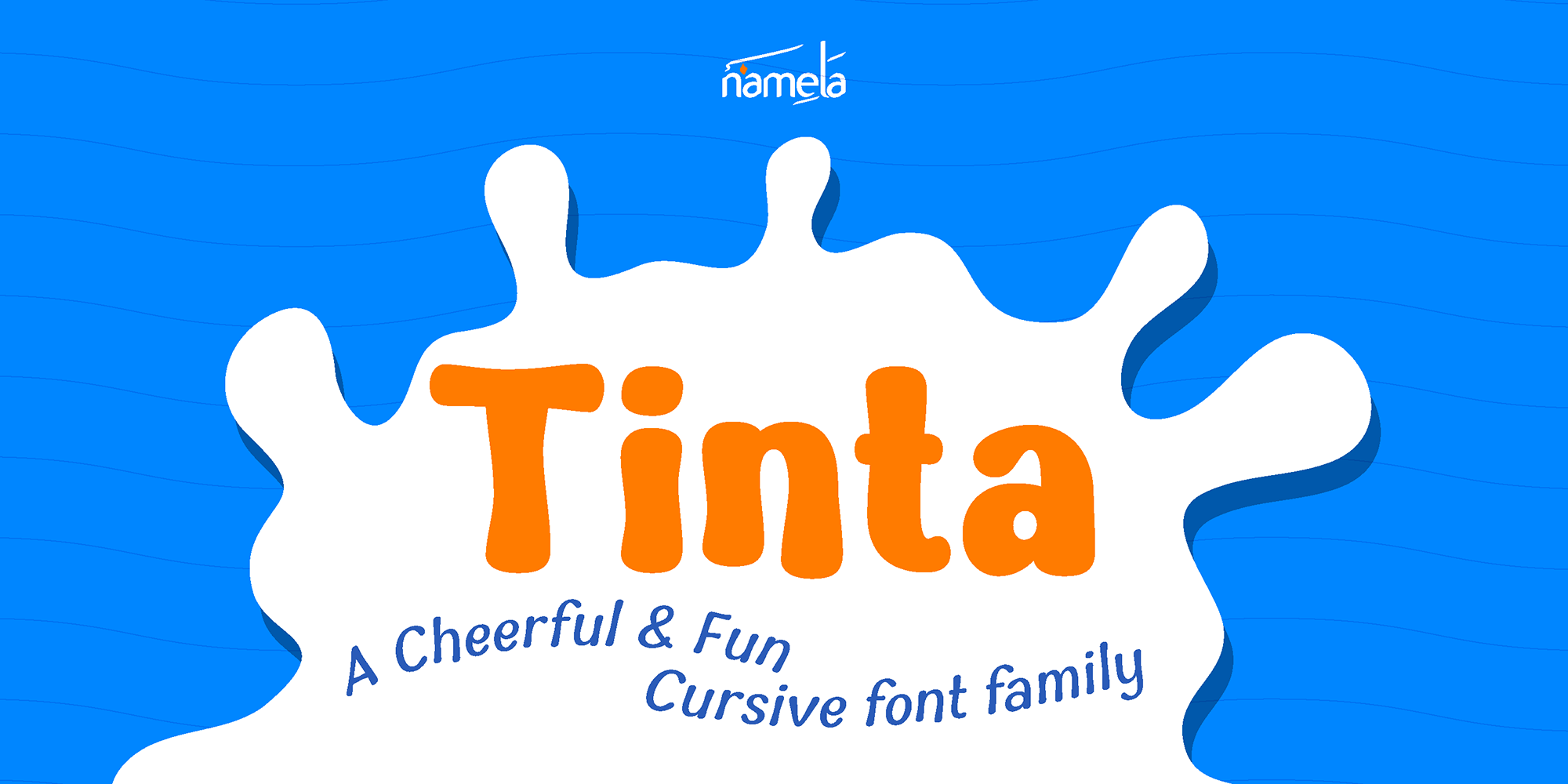
Tinta Free Download
This captivating typeface is an excellent choice for projects that demand a blend of artistic flair, expressive brushwork, and a unique, hand-painted aesthetic. Imagine it gracing the covers of creative journals, adding an authentic touch to artisanal product labels, or bringing a spontaneous energy to art exhibition titles. Tinta Font is also perfectly suited for designing dynamic social media graphics, crafting distinctive logos for artistic brands, or creating compelling visuals for events focused on creativity and self-expression. Its often fluid strokes, expressive textures, and energetic flow make it an ideal option for any design seeking to convey individuality, passion, and an undeniable sense of artistic freedom, such as personalized stationery, independent music album art, or bohemian fashion branding.
What makes Tinta Font so exciting? It authentically captures the raw, gestural quality of ink on paper, often featuring visible brushstrokes, subtle drips, or an organic unevenness that gives it a vibrant, handmade feel. This font doesn’t just convey text; it creates a visual artwork, imbued with the character and spontaneity of a skilled hand. It's engineered to stand out in a world of precise digital fonts, offering a tangible, human touch that resonates with audiences seeking genuine craftsmanship and a unique artistic statement. The inherent dynamism and unfiltered appeal of its character shapes make it particularly effective for brands that champion originality, raw emotion, and an uncompromising, authentic identity. Its distinctive style can evoke a sense of creative passion, fluid movement, and expressive freedom.
The Tinta Font family typically offers a range of styles to enhance its versatility, allowing for various levels of visual expression and design impact. You might find options such as Regular, Bold, and perhaps even a textured or "dry brush" version that further emphasizes its hand-painted appeal, or alternative characters that provide additional design flair for a truly unique look. Each stylistic variation is meticulously designed to retain the font's characteristic essence while providing different degrees of visual intensity. These variations enable designers to create layered and dynamic compositions, using heavier weights for primary titles that demand immediate attention and lighter, more fluid versions for impactful subheadings or supporting elements. The availability of multiple stylistic options ensures that Tinta Font can be seamlessly integrated into diverse design applications, from vibrant digital content to engaging print materials, all while maintaining its unique and powerful allure.
Whether you're creating a bold statement for an artistic brand, designing an unforgettable event poster, or simply need a typeface that speaks with undeniable passion and a raw, artistic attitude, Tinta Font Free Download is an outstanding choice. Its distinctive impact and versatile nature will ensure your designs always leave a memorable and expressive impression.